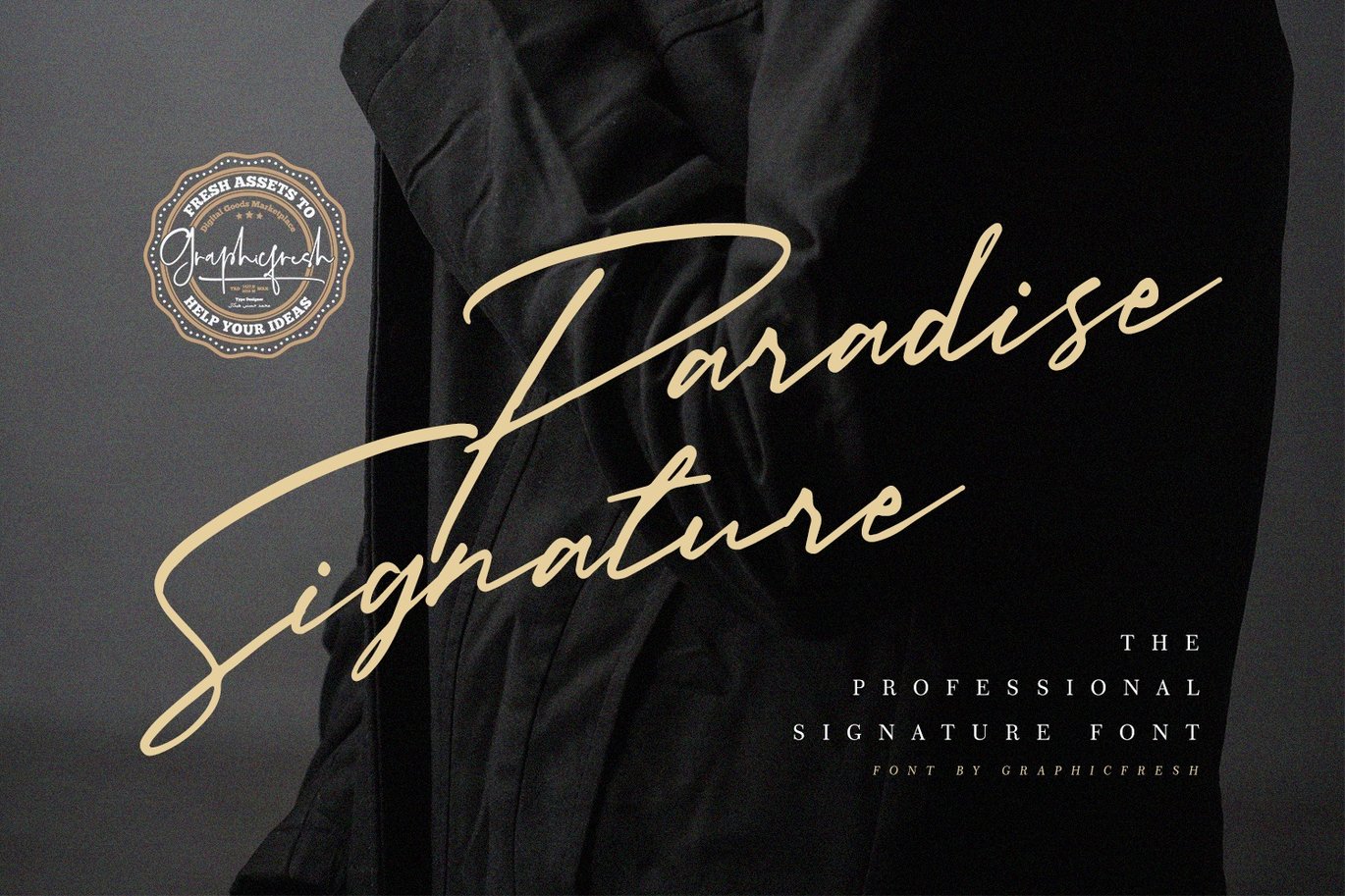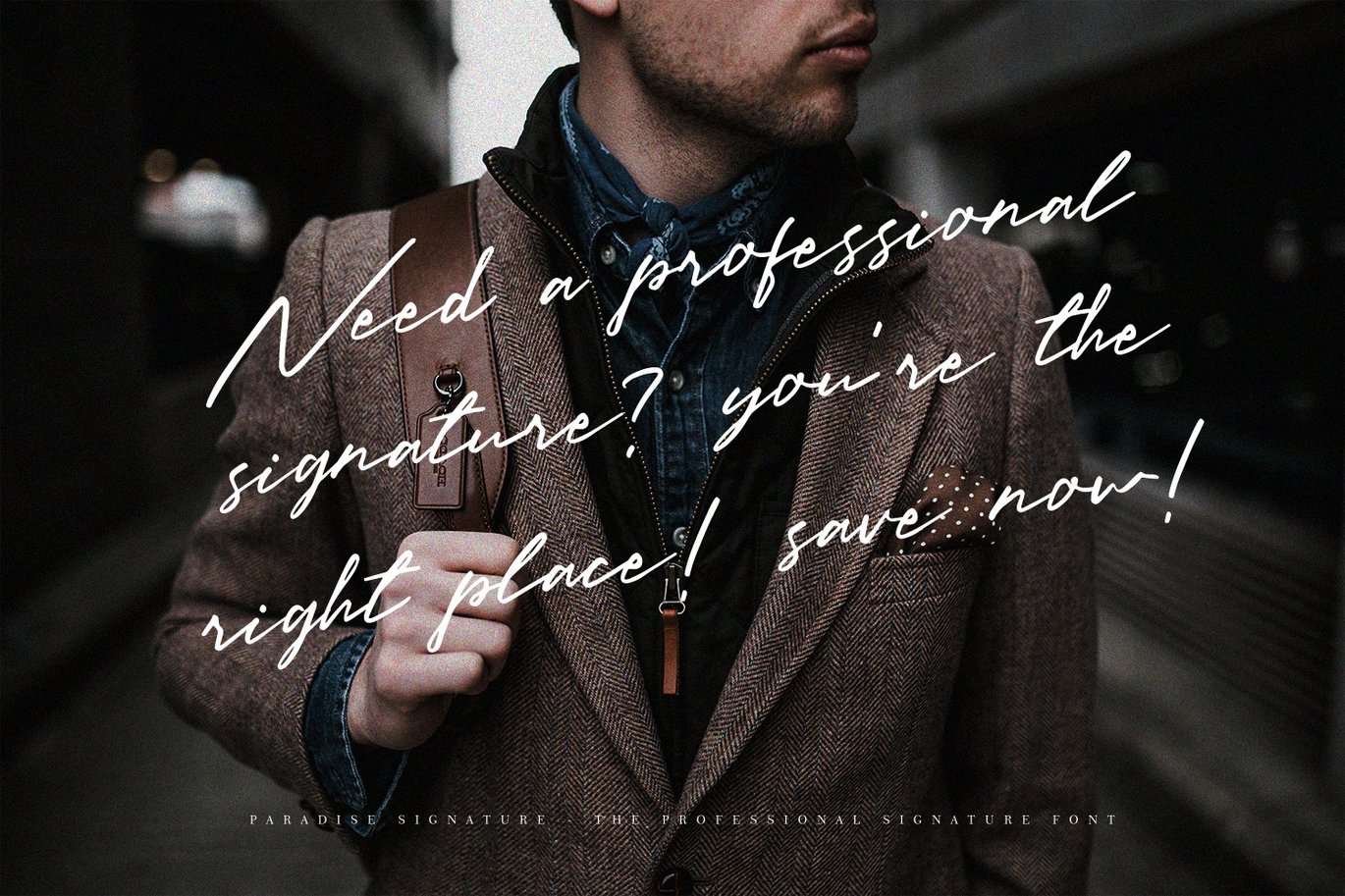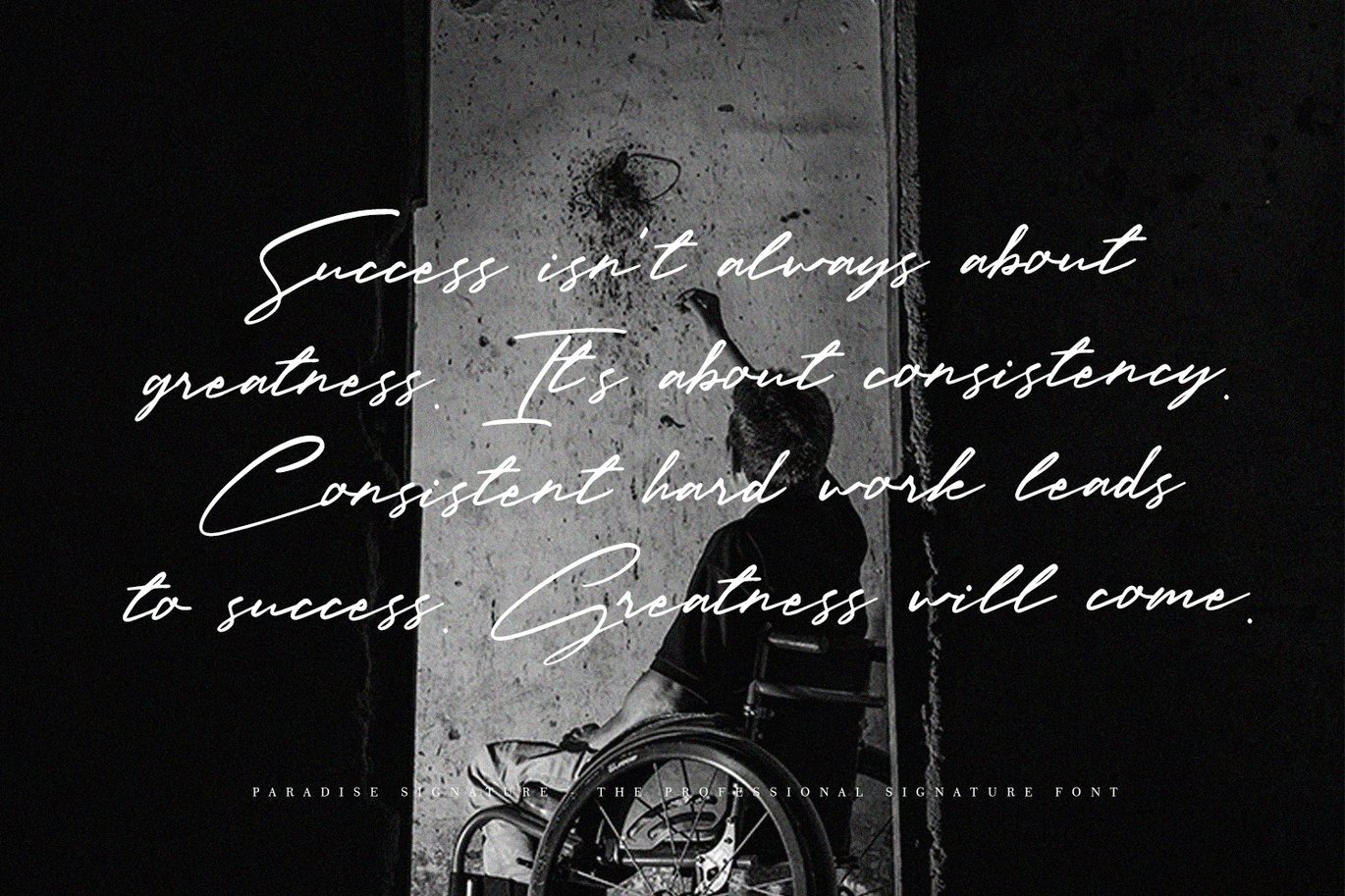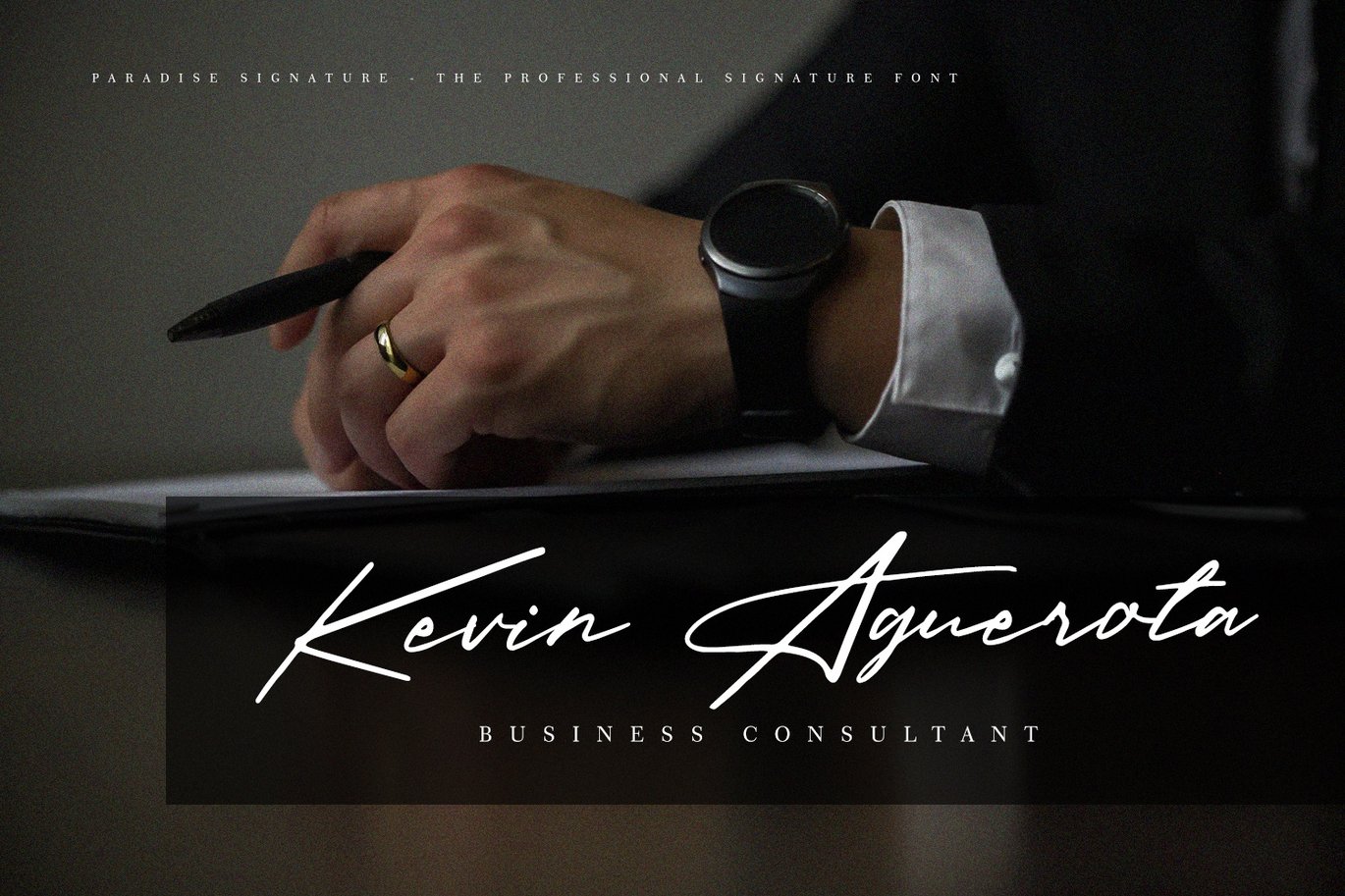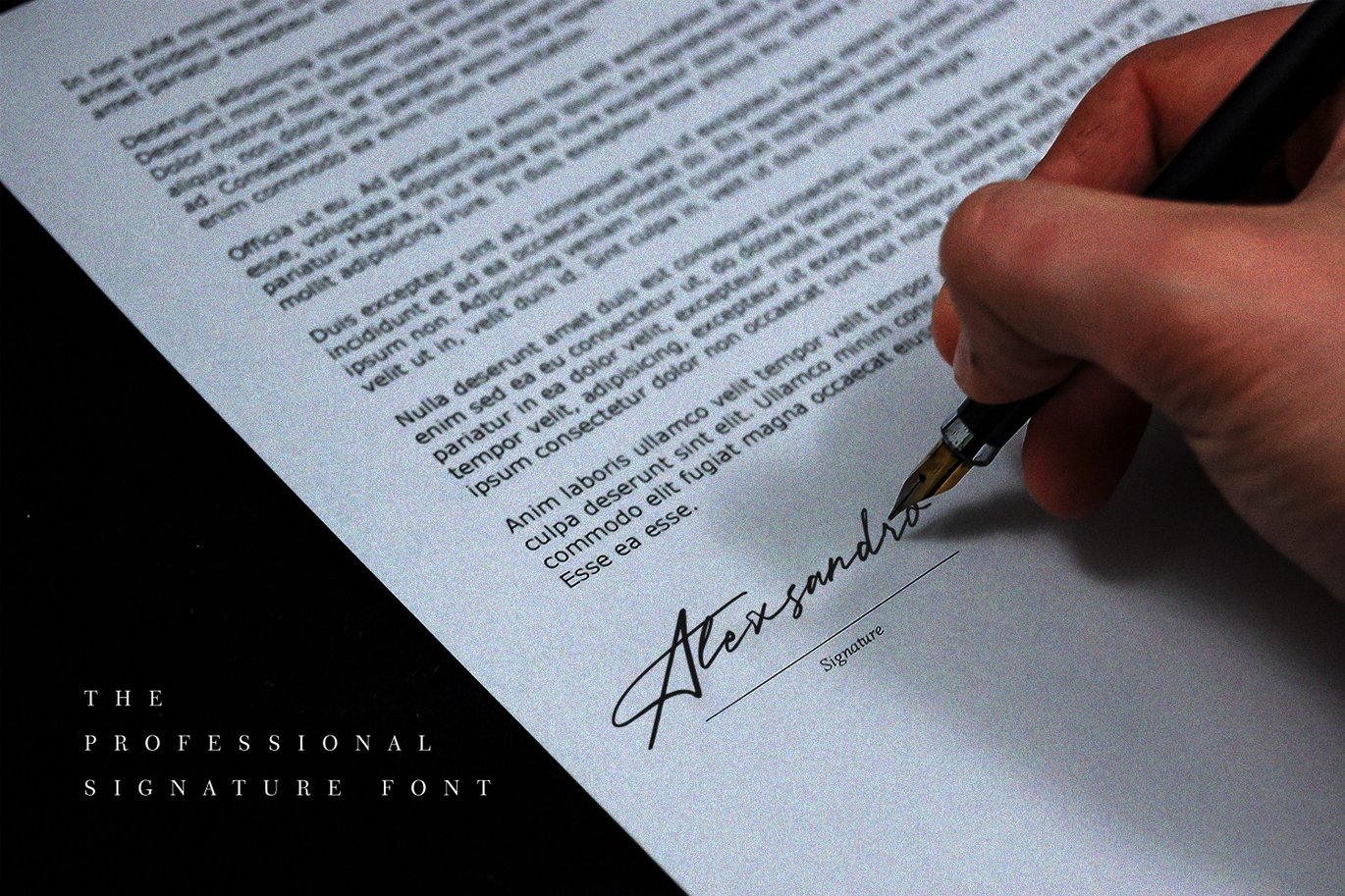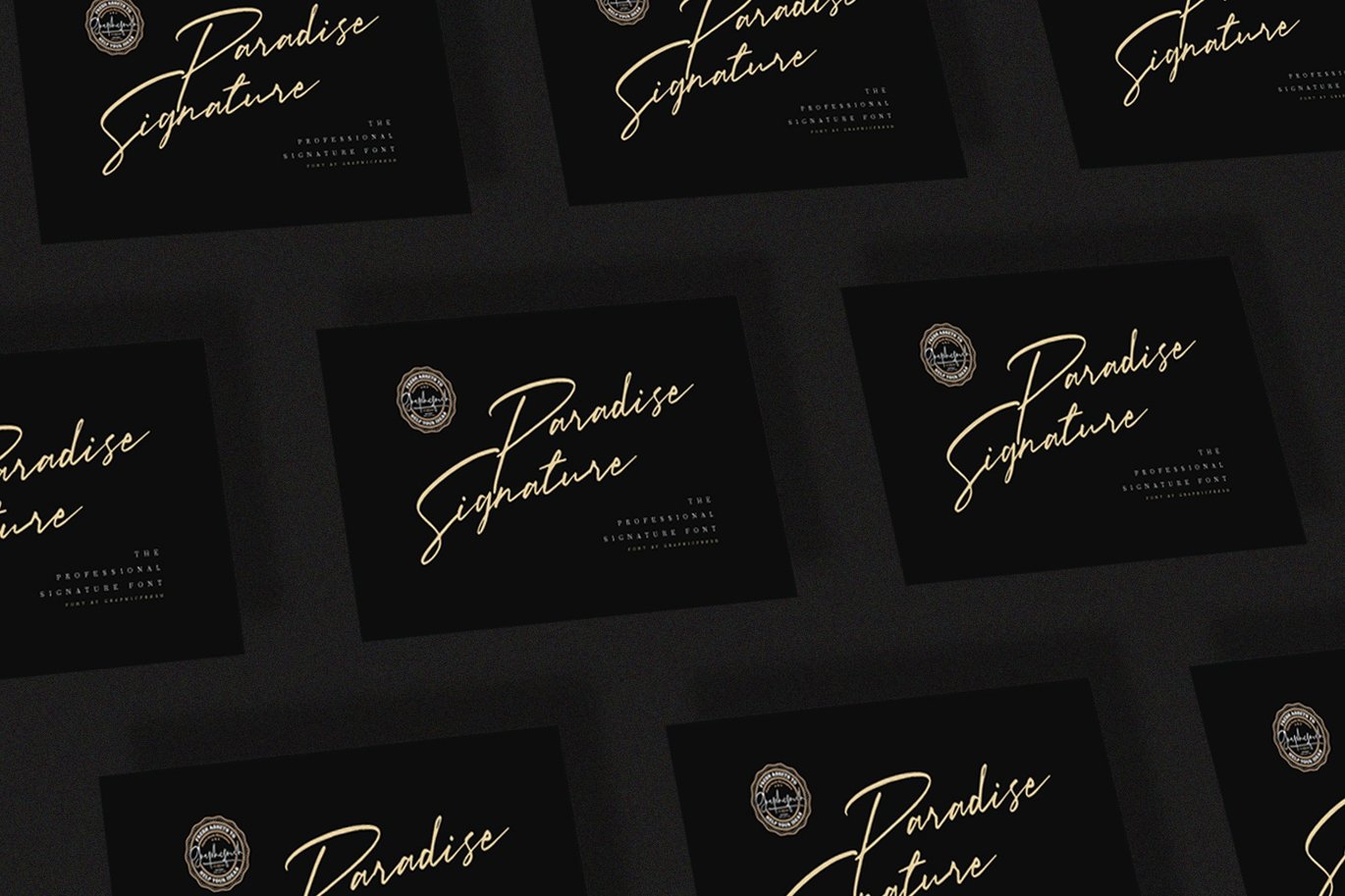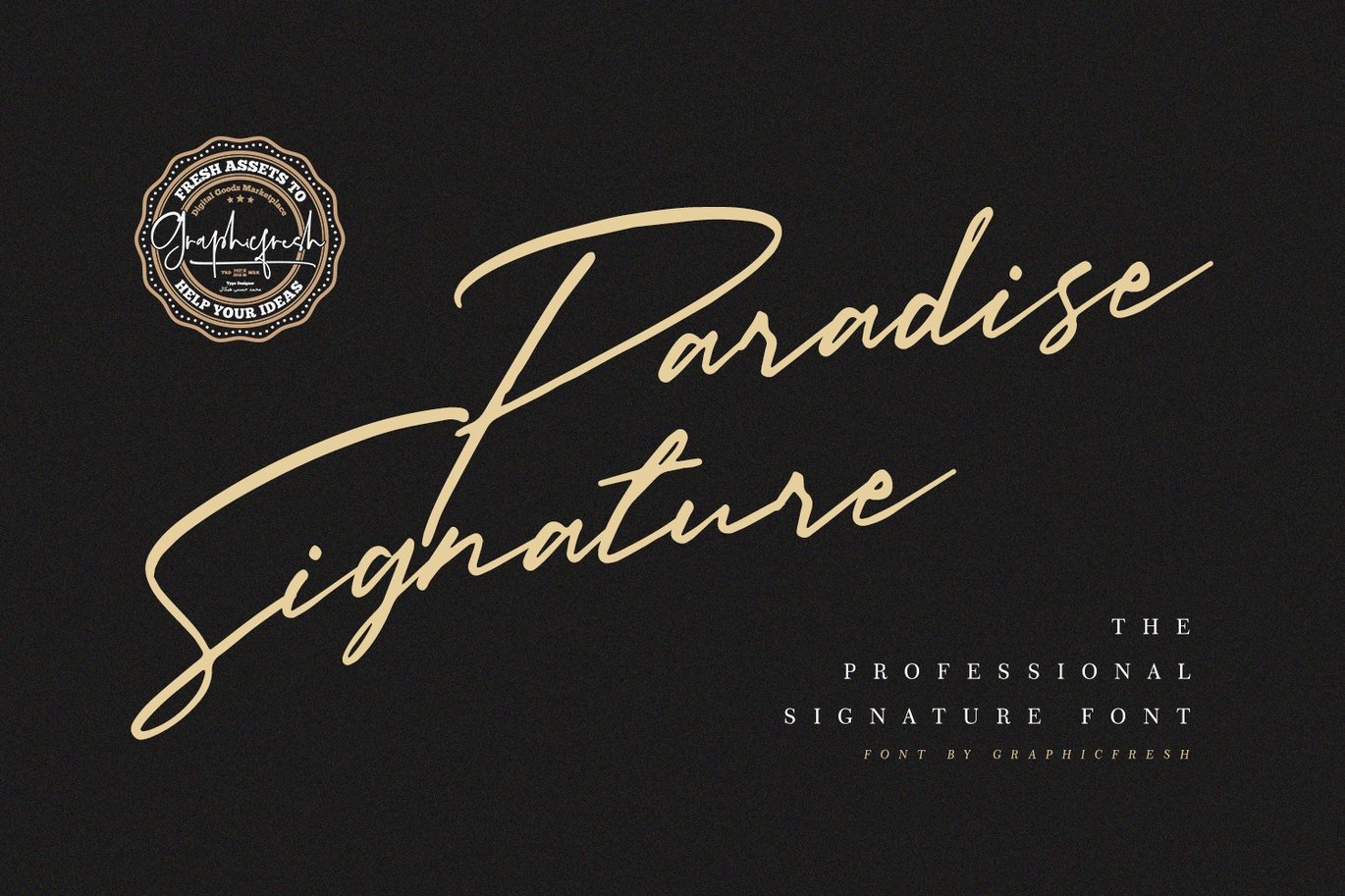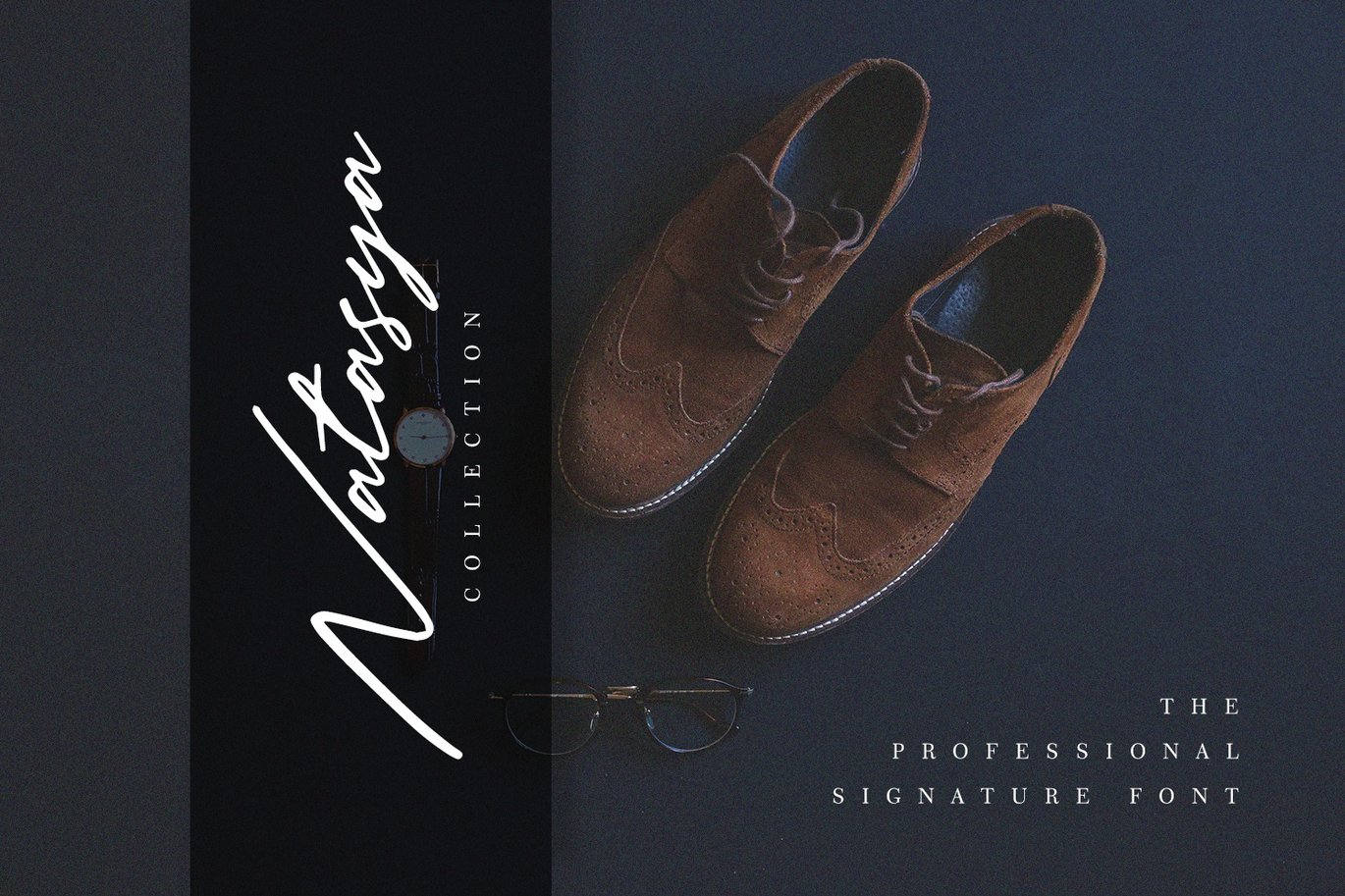
Paradise Signature Font
I am looking for a good time to cross out on Ipad. Until finally I got an interesting inspiration, then I created a brush on ipad and I wrote it on a piece of paper on ipad until it became an interesting writing. From this sketch, I made this font. So, this font is from scratch without any additions.
Paradise Signature Font – Script Font – A Professional Signature script and unique character! it’s perfect for logos, name card, magazine layouts, invitations, headers, or even large-scale artwork.